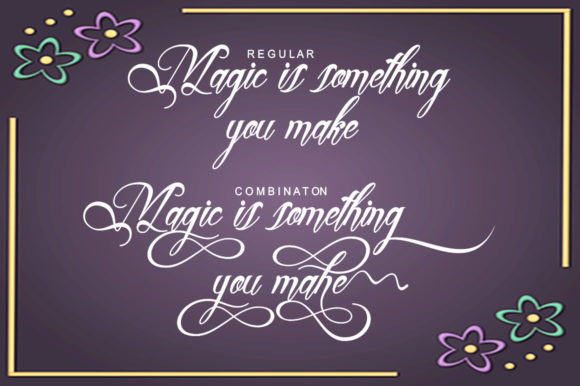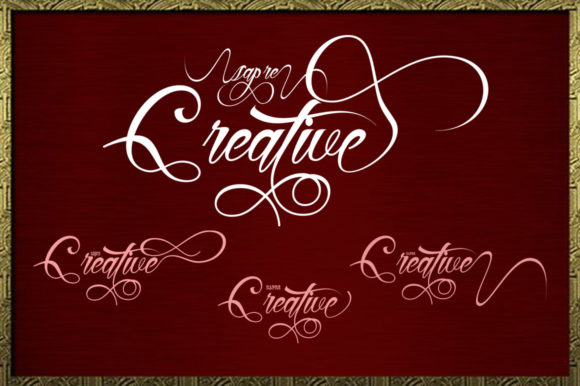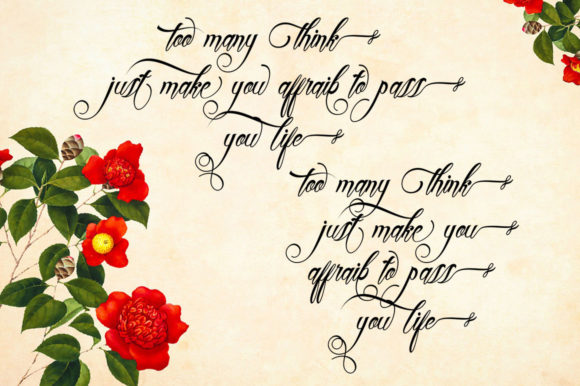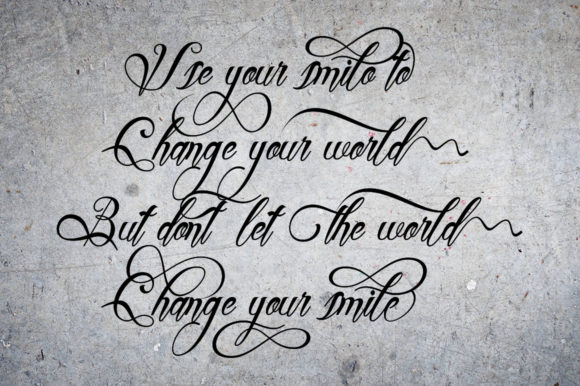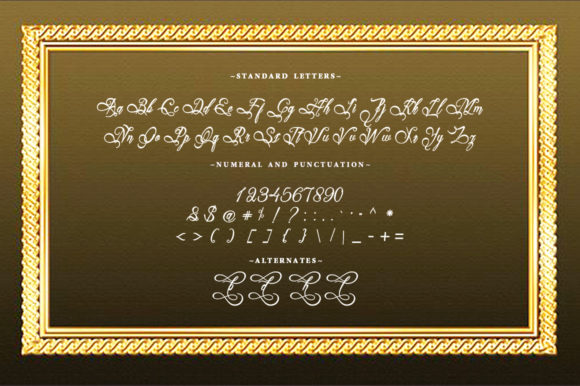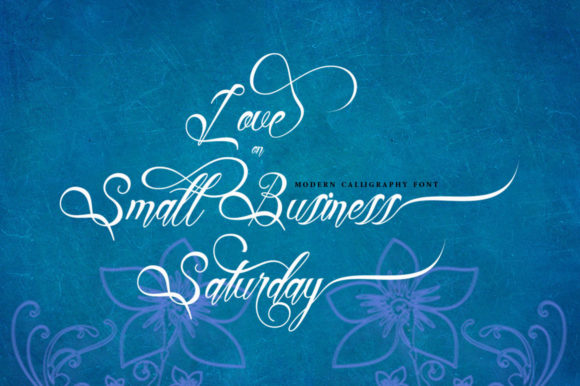
Introduction to Dethalia Font
The Dethalia is an amazing calligraphy font.
It includes various basic and fine lines which will add a classic and elegant touch to your designs .
Key Features of Dethalia Font
Why Choose Dethalia Font?